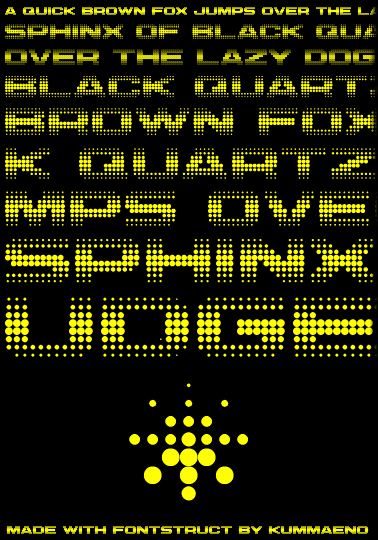
• A dotty raster halftone exercise. This was fun to struct--visual effects occur as you zoom in and out with the viewing slider. Other nice things happen when manipulating brick size with the filter function. To be continued...
Full of shimmering goodness - beautifully crafted. 10/10